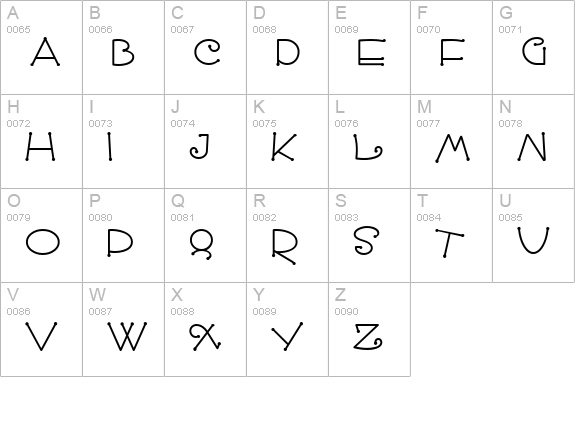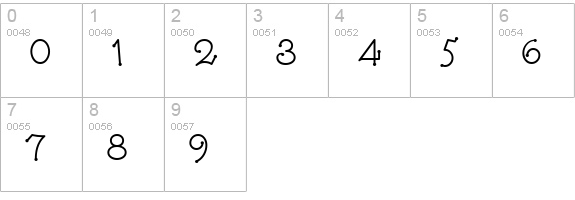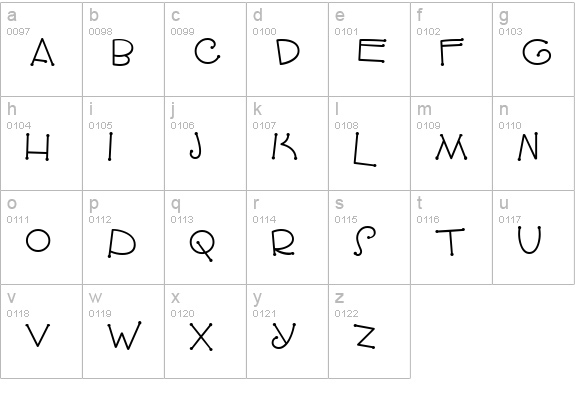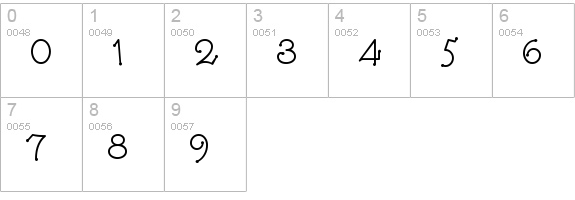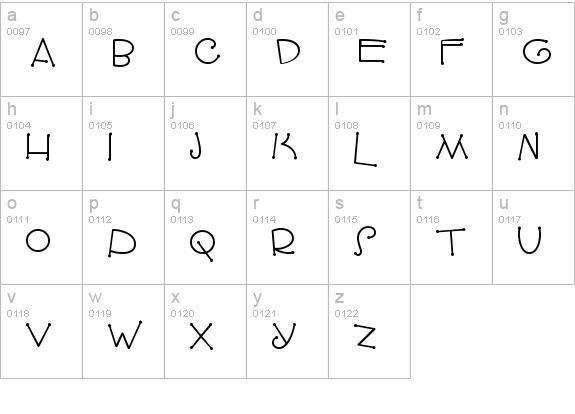
SnoodleToonsNF Font Details
Introducing SnoodleToonsNF, a delightfully playful and whimsical font that is sure to add a touch of charm to any project. With its quirky letterforms and unique character designs, this font is perfect for capturing the imagination and bringing joy to your designs. SnoodleToonsNF is not just a font - it's a journey into a world of fun and creativity. Each letter has been meticulously crafted to be full of personality and character, making it a true standout in the world of typography. From its curvaceous shapes to its playful quirks, SnoodleToonsNF is sure to leave a lasting impression. And the best part? SnoodleToonsNF is completely free! That's right, this font is freely available to download at FontsMarket.com. Whether you're a professional designer or a hobbyist looking to add some pizzazz to your projects, SnoodleToonsNF is the perfect choice. Imagine using SnoodleToonsNF in children's book illustrations, playful logos, or even greeting cards. Its versatility knows no bounds, allowing you to create truly unique and eye-catching designs. Each letter dances across the page, inviting the reader to join in on the fun. So why wait? Download SnoodleToonsNF today and let your creativity soar. With its free availability at FontsMarket.com, there's no reason not to add this delightful font to your collection. Embrace the whimsy and let SnoodleToonsNF bring a touch of magic to your next project.